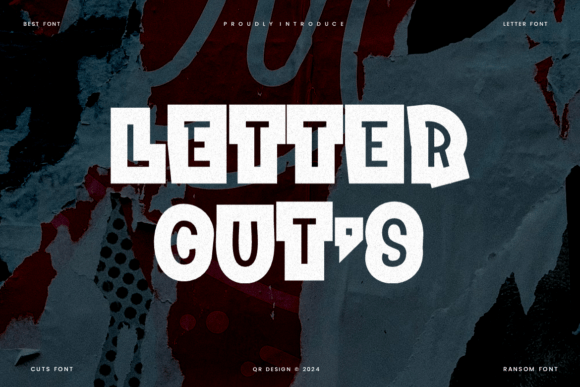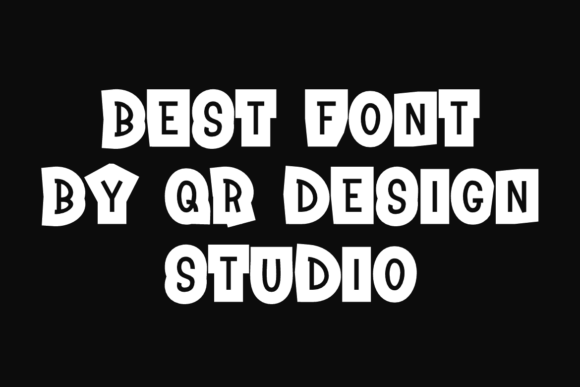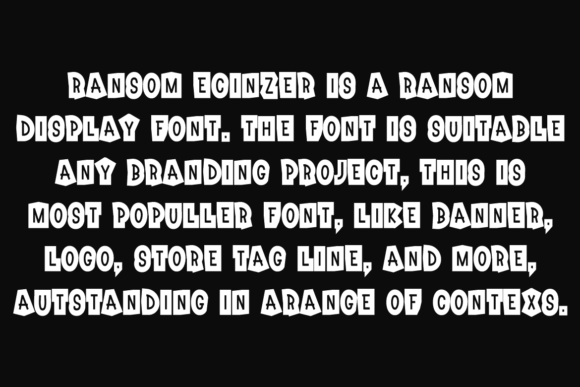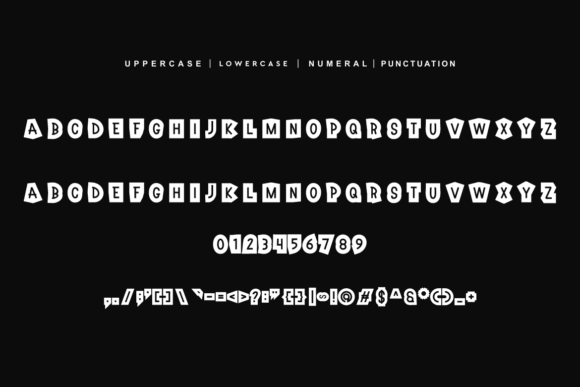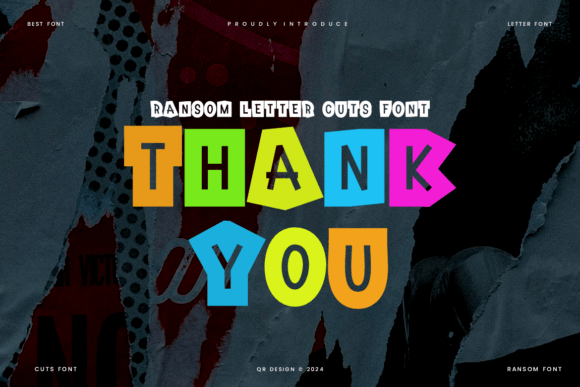
Introduction to Ransom Ecinzer Font
Ransom Ecinzer Font is a bold and authentic display font.
The font is suitable for any branding project, like logos, sports, and many more Outstanding in a wide range of contexts.
Key Features of Ransom Ecinzer Font
Why Choose Ransom Ecinzer Font?